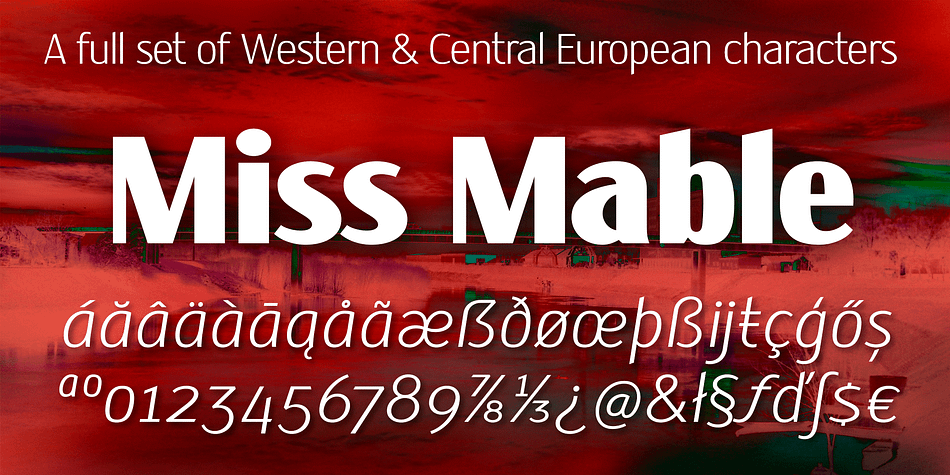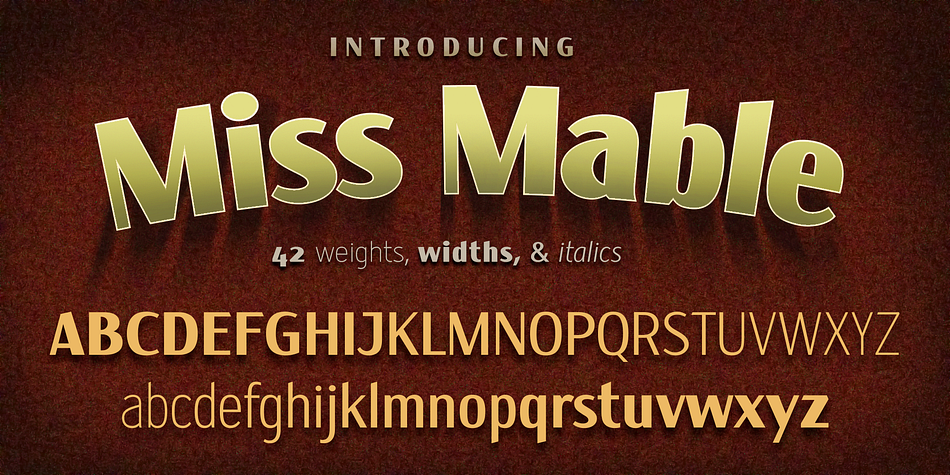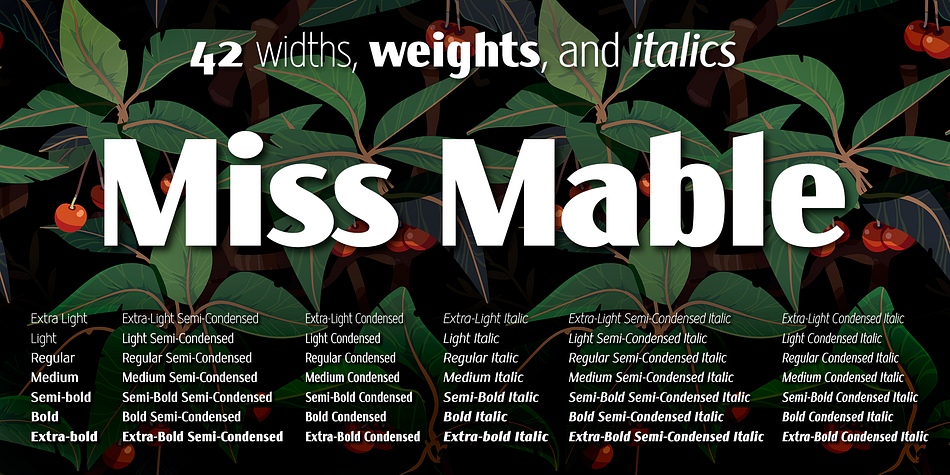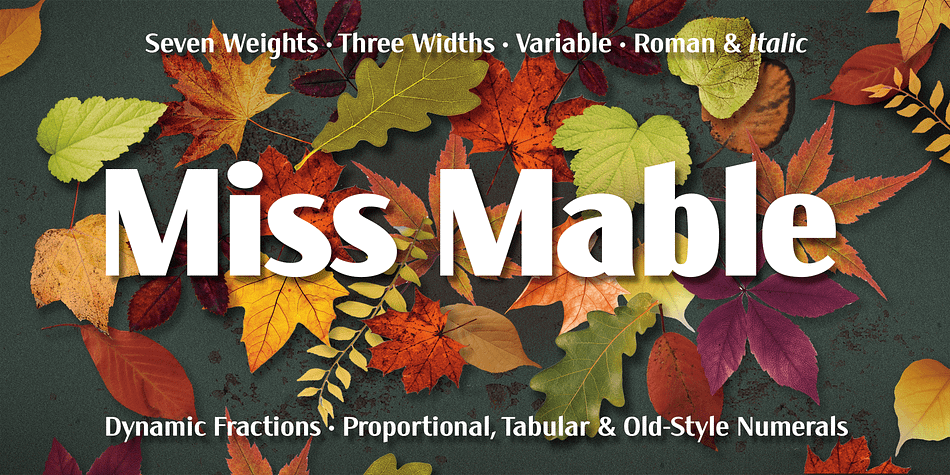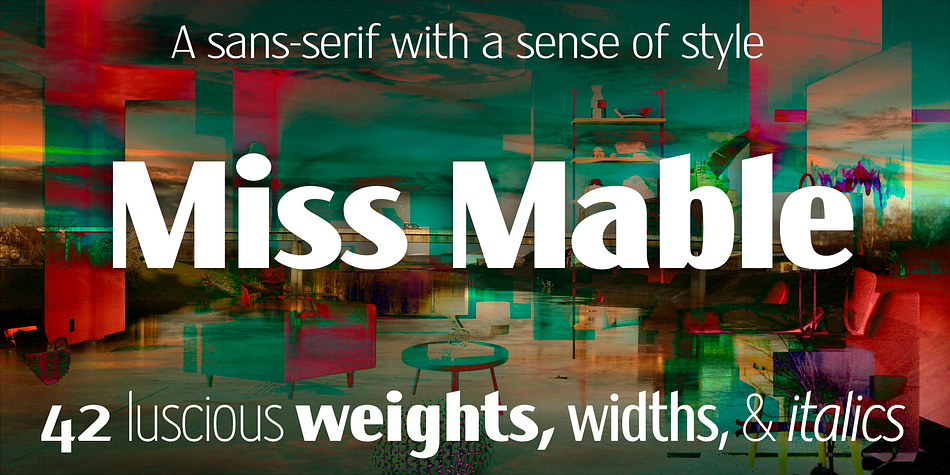
Miss Mable
Designed by Cory Maylett, Miss Mable is a sans serif font family. This typeface has forty-four styles and was published by Cory Maylett Design.
Miss Mable is a high-quality, well-proportioned contemporary typeface with variations in thick and thin strokes that contains a hint of previous decades. I wanted to create enough weights and widths to make the typeface suitable for a wide range of uses where a soft, stylish, and friendly look is appropriate.
The Miss Mable type family consists of 44 fonts. The family encompasses seven weights across three widths in Roman and italics plus variable versions. Each font contains a complete set of characters for Western and Central European languages. In addition, OpenType features include dynamic fractions, alternate glyphs, ligatures, plus proportional, tabular, and old-style numerals. These high-quality fonts are fully compatible with Windows, Macintosh, and Linux.
Also for sale are two Miss Mable variable fonts that include all Roman and italic glyphs of every width and weight plus everything in between. For example, if you need something slightly bolder than bold and a little wider than semi-condensed, the variable fonts make that possible without distortion. Variable technology is new, however. All modern web browsers support variable fonts, but support for most desktop software is still spotty.